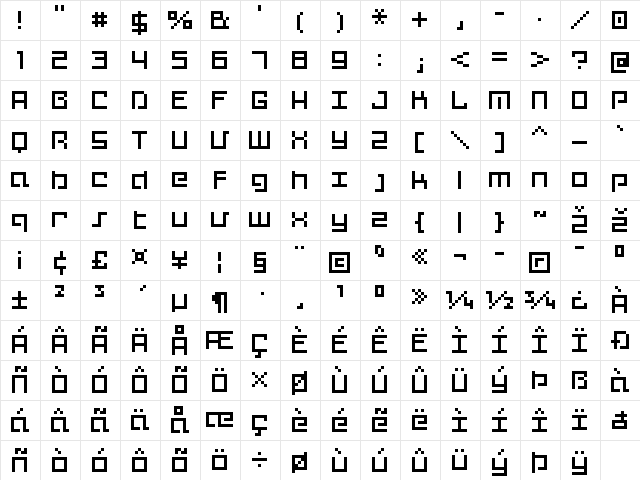
FFF Bytecode Regular
Design Context for FFF Bytecode Typeface
FFF Bytecode brings the precise, column-aligned rhythm of monospaced typography to designs that value technical clarity and systematic order.
Pro Tip: Pair FFF Bytecode with a proportional sans for UI contexts where code-style labels and regular body copy need to coexist.